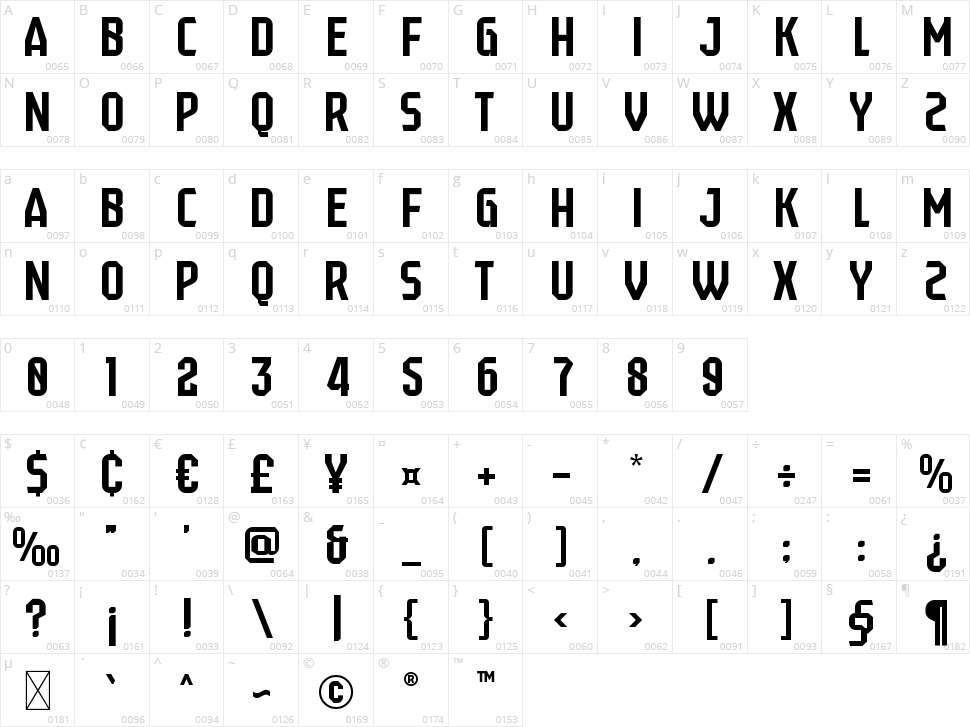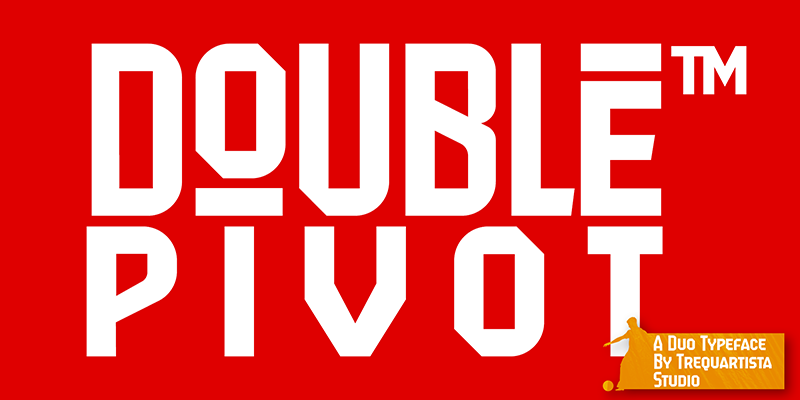
Double Pivot
Double Pivot , a condensed sport inspired Regular, Low, & Mix typeface. Double Pivot has six Style with sans serif and matching italics. This typeface has a clean and athletic look, glyphs and extensive Latin script support. Double Pivot is bold, vibrant with sharp sans serifs and competitive appearance, therefore excellent to use for headers, logos, captions and posters, especially for the sports branding industry, but just as good for any other projects.